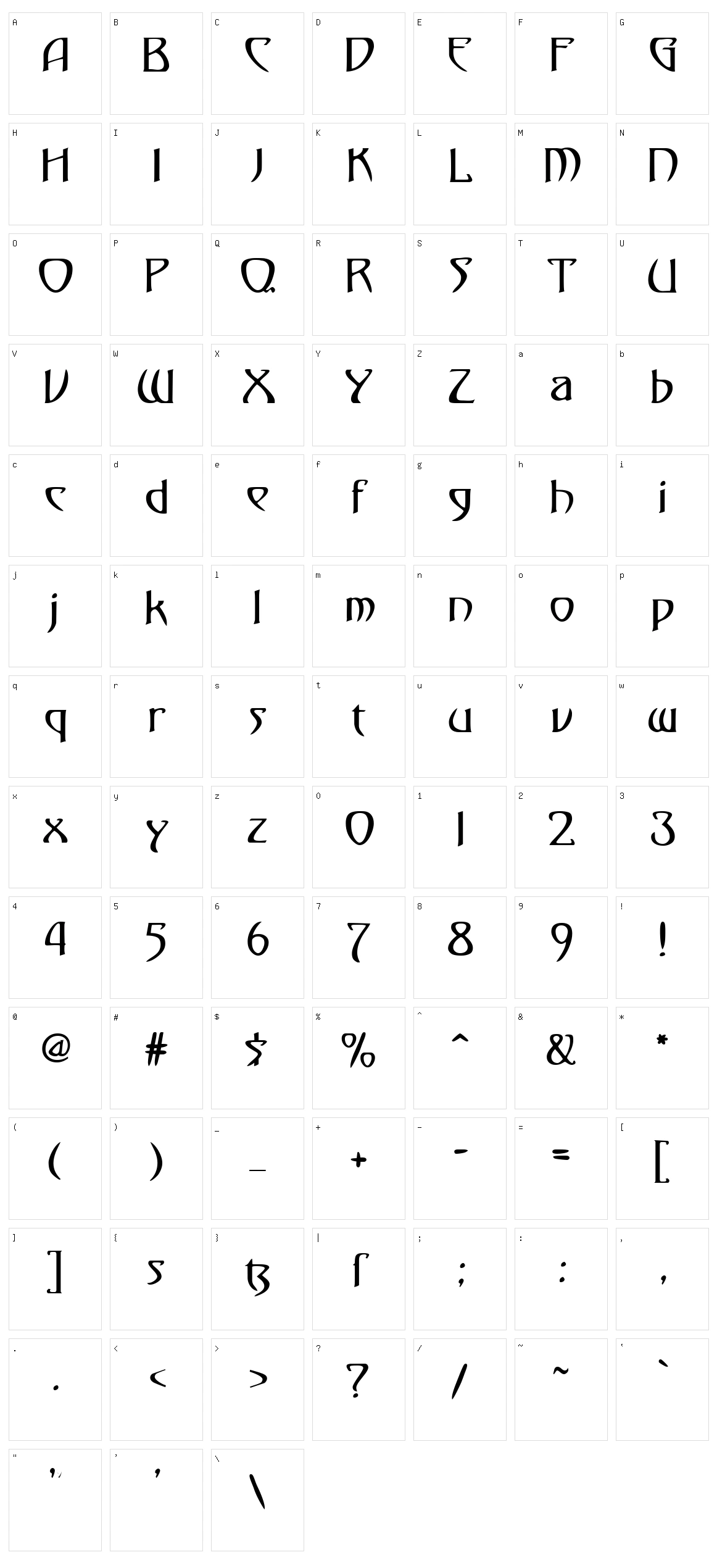
Gismonda FG
Gismonda is an elegant Art-Nouveau style typeface in one weight possibly published first by the now extinct company Face Photosetting in London, UK.
I found this font on a PD font CD without any hints to its origin. In 2002, I cleaned up the glyphs and added international characters. That version was published in Fontgrube through the same year.
Later on I learned that the font digitisation was attributed to one Sam Wang - there are quite a few people of this name in the net but none of them obviously associated with fontmaking. He seems to have digitized a number of Art Nouveau typefaces in the early nineties (see http://luc.devroye.org/fonts-28307.html).
Last year, on October 22nd 2012, a Geoff Nicholson stated on Fontspace (http://www.fontspace.com/sam-wang/gismonda):
This typeface was actually designed by myself in 1971
for Face Photosetting in London , England.
The company ceased to exist in the mid 1980s, so
somehow I no longer seem to be credited for this.
Once again, there are several Geoff Nicholsons in the internet, and the one on fontspace did not reply to a request to explain in more detail. So all we have (as yet) on the history of Gismonda is two names and no idea who is behind them.